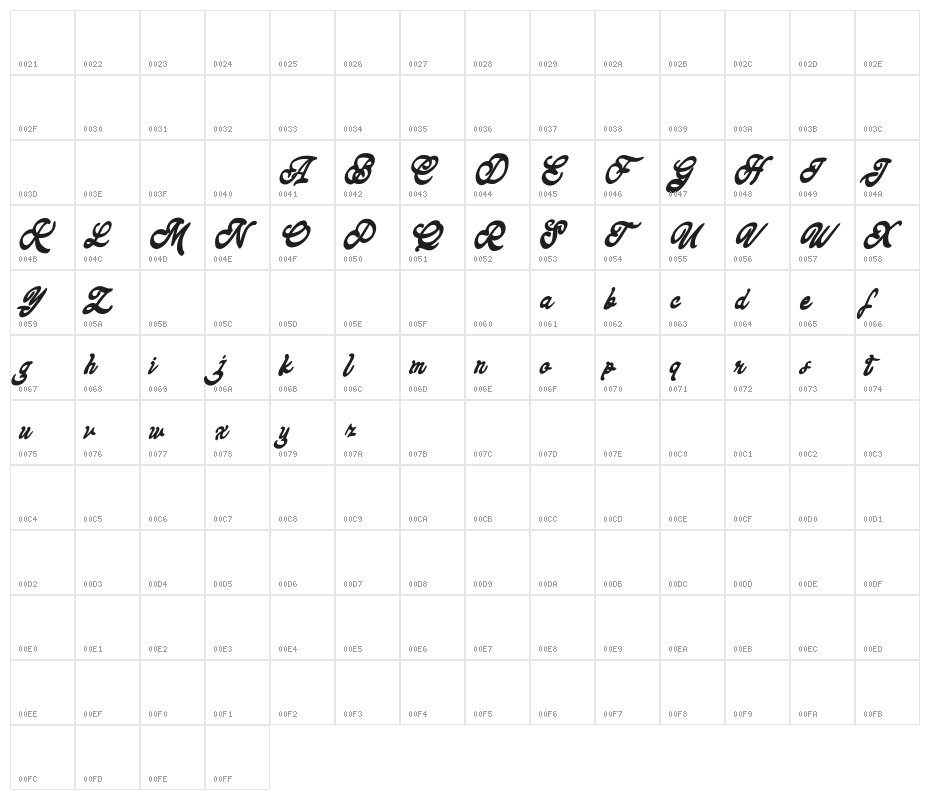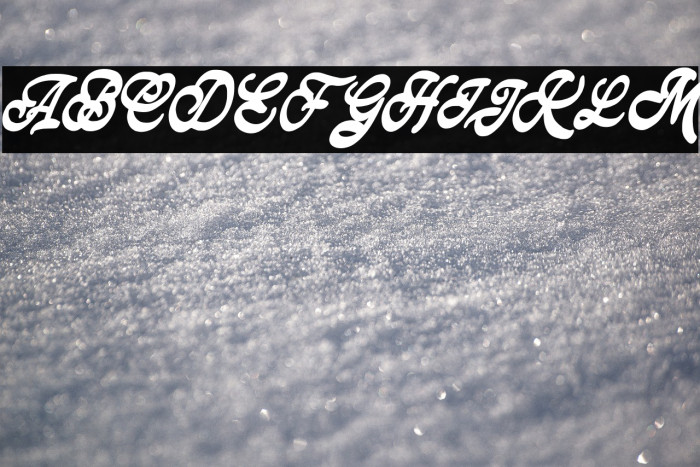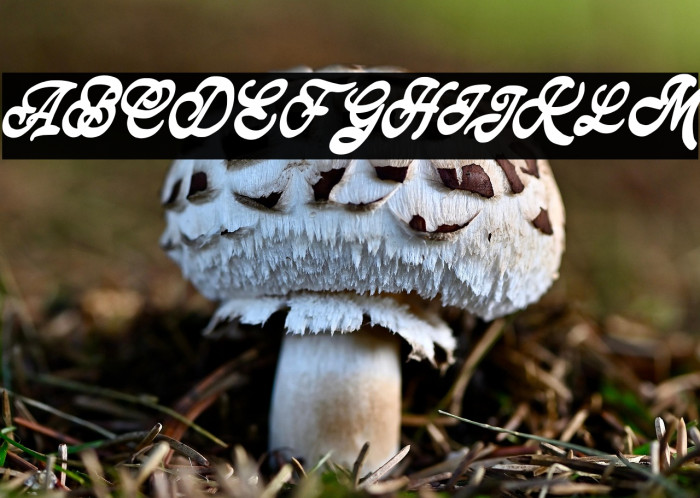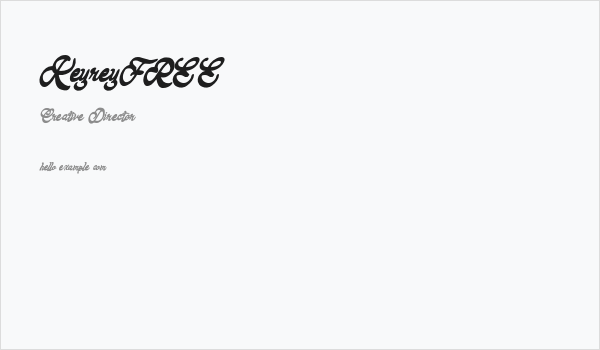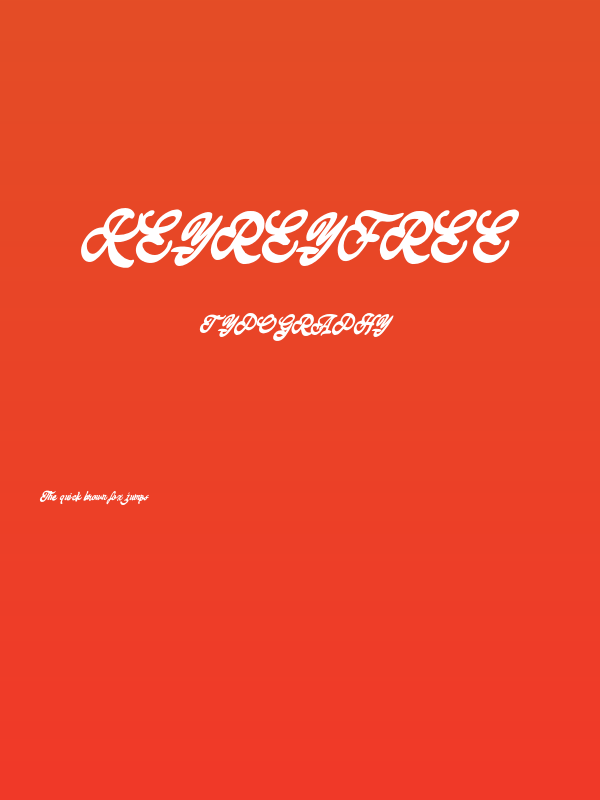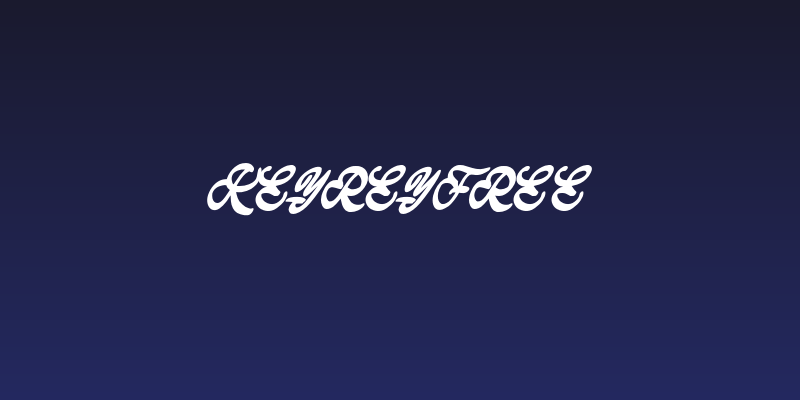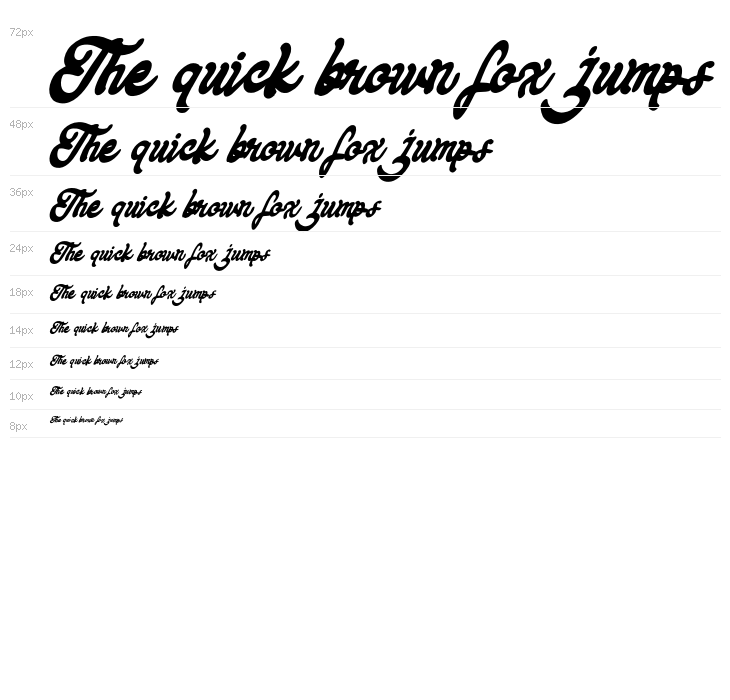
KeyreyFREE Font
KeyreyFREE Description
This font features a bold and expressive script style, characterized by its flowing, cursive letters with a strong emphasis on curves and loops. The uppercase letters are particularly ornate, with exaggerated flourishes that give the font a dynamic and lively appearance. The lowercase letters maintain a consistent style, with smooth connections between characters that enhance readability while retaining an artistic flair. The overall design is reminiscent of traditional calligraphy, yet it possesses a modern twist that makes it suitable for contemporary uses. The font's bold weight and high contrast between thick and thin strokes add to its visual impact, making it ideal for attention-grabbing headlines or decorative purposes.
| Use Case | Headlines, Logos, Invitations |
| Proposed Projects | Ideal for wedding invitations, branding, logo design, and decorative headlines. |